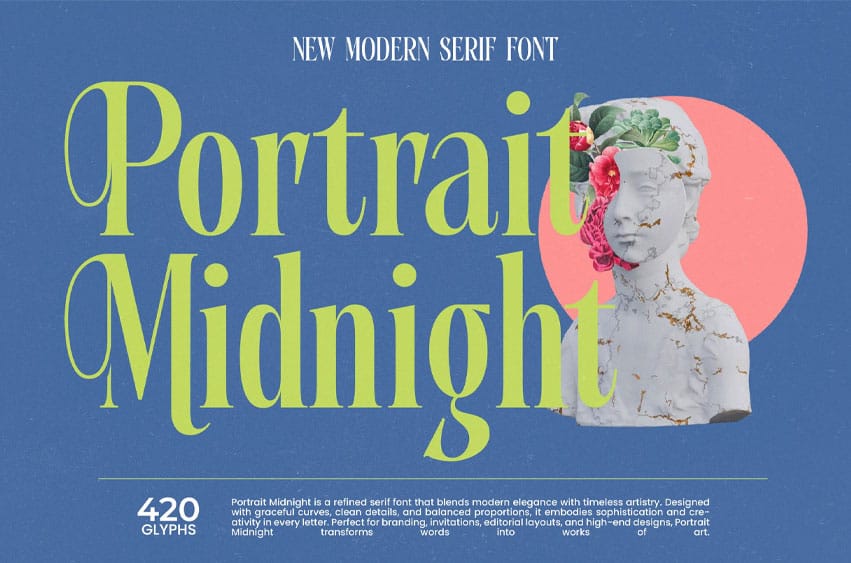
Portrait Midnight Font is a refined serif font that combines modern sophistication with timeless artistry. With 420 glyphs, graceful curves, and balanced proportions, this typeface is ideal, invitations, branding, and editorial layouts.
Designed to bring elegance and creativity to every composition, Portrait Midnight is a versatile choice for both digital and print projects, delivering a luxurious and artistic statement in every use.